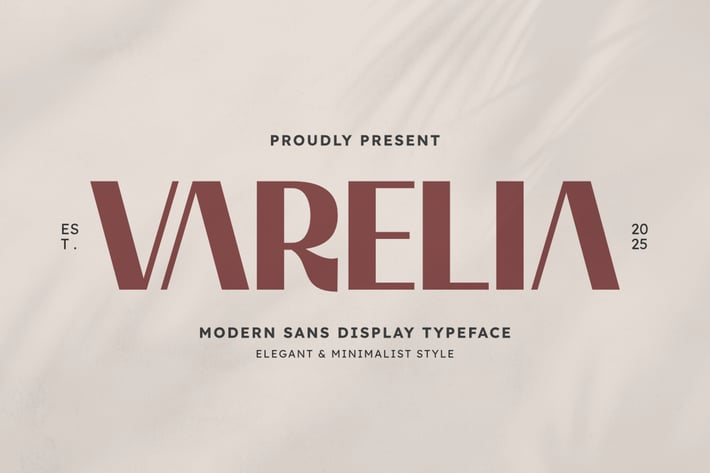
Varelia – Modern Sans Serif Display Typeface
Varelia is a modern sans serif display typeface that blends clean geometry with subtle sophistication. With its sharp lines and balanced proportions, this font is ideal for branding, editorial layouts, packaging, UI design, and minimalist headlines.
Its versatility makes it suitable for both digital and print applications that need a sleek, professional look.
Key Features:
- Clean modern sans serif design
- Perfect for branding, apps, websites, and magazines
- Strong legibility in large and small sizes
- Ideal for minimal, elegant, and tech-forward aesthetics
- Uppercase letters, numbers, punctuation
- Professionally kerned with even spacing
Varelia gives your visual content a polished, contemporary finish with clarity and class.
Enhance your designs with Varelia – a sleek and refined modern sans serif display typeface.